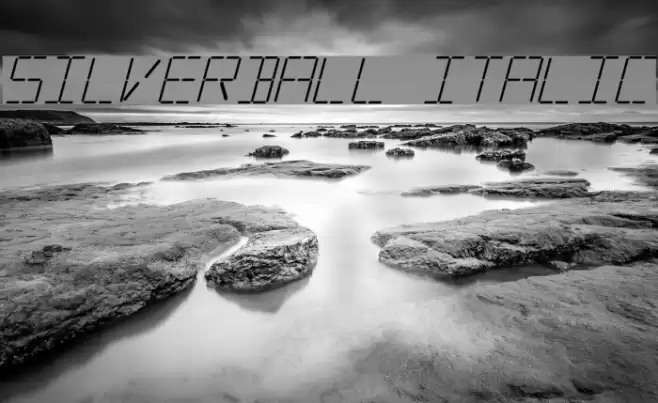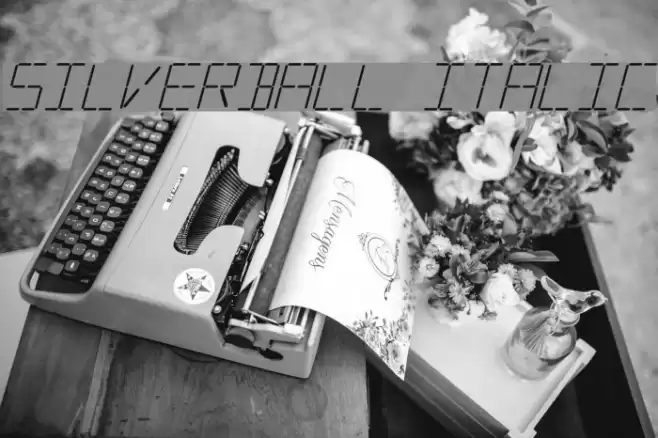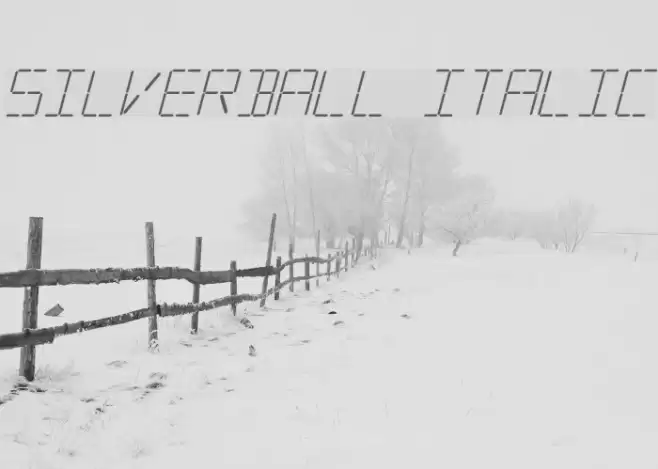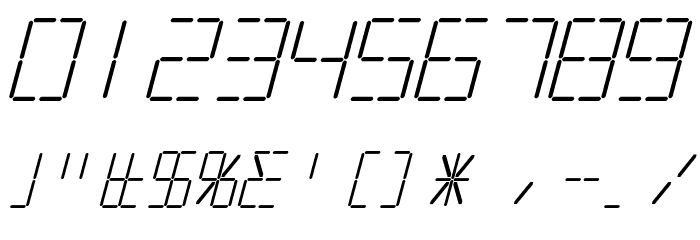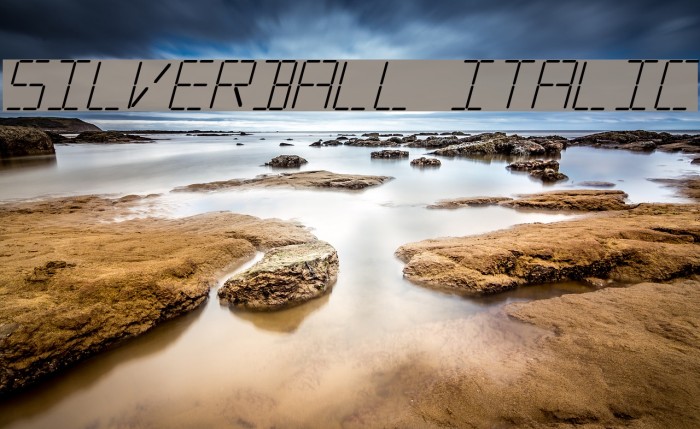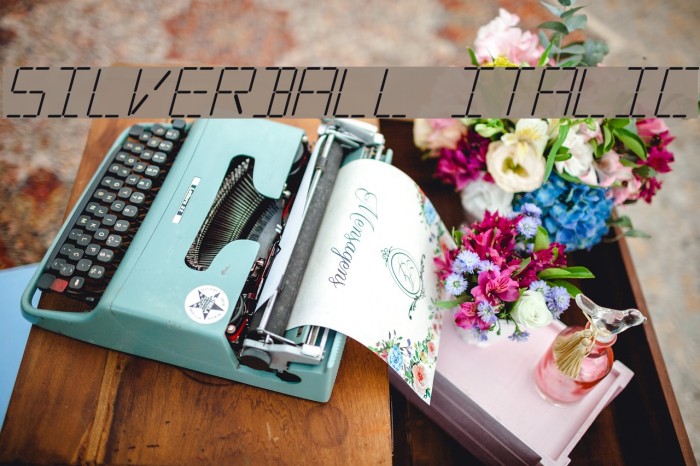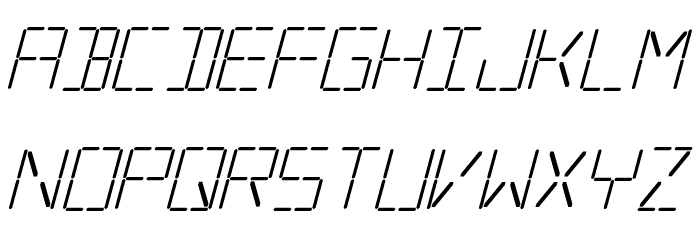
Silverball Italic Font
Silverball Italic Description
This font features a distinct, futuristic style with a geometric and angular design. Each character is composed of segmented lines, giving it a digital or electronic feel reminiscent of LED displays or digital clocks. The italic slant adds a dynamic and forward-moving energy, enhancing its modern appeal. The uppercase and lowercase letters maintain a consistent structure, ensuring readability while maintaining the unique segmented appearance. Numbers and special characters follow the same design principles, providing a cohesive look across all glyphs. This font's design is both innovative and functional, making it suitable for various creative applications.
A futuristic, segmented font with an italic slant, ideal for digital-themed projects from Uncategorized fonts.
- Proposed Projects: Perfect for tech-related branding, digital interfaces, sci-fi posters, and modern advertising campaigns.
- Use Case: Headlines, Logos, Digital displays